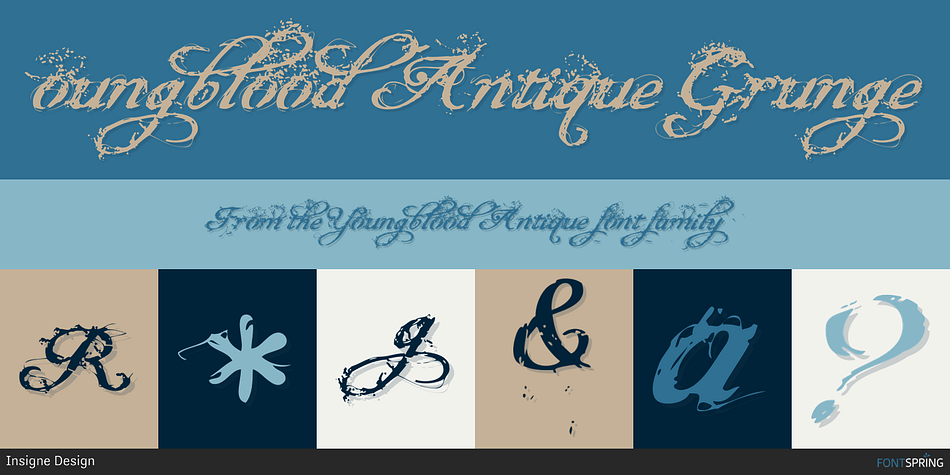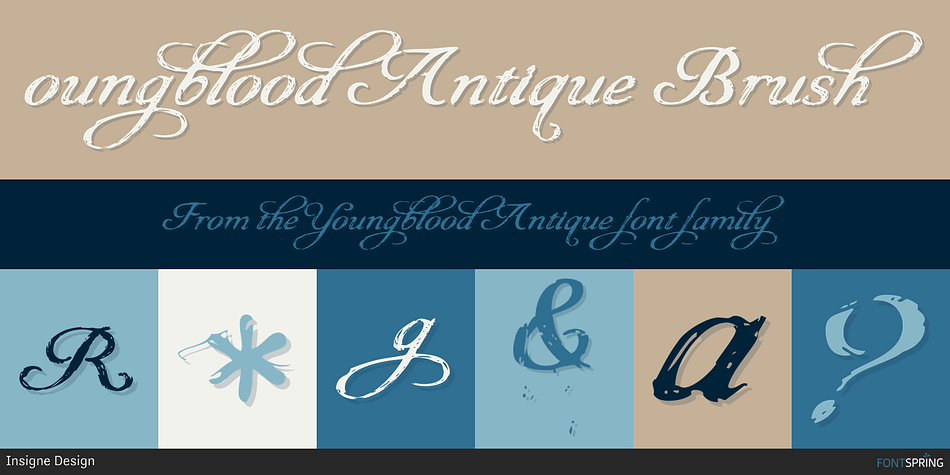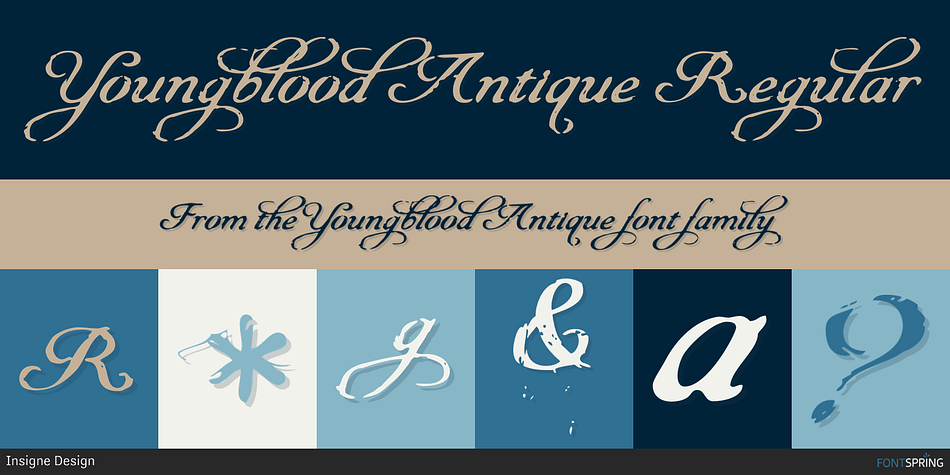
Youngblood Antique is a grunge and script font family. This typeface has three styles and was published by Insigne Design.
Youngblood Antique is a distressed non-connected formal script with tall, sweeping ascenders. Three variants are available, including an inked regular font, a font drawn with a dry brush and a distressed, grungy version. Sixty-four OpenType ligatures add a realistic, natural effect and ensure that no two letters in a word repeat. Youngblood Antique also includes OpenType ending swashes, and old style figures and 30 alternate characters that allow designers to customize the ascender and descender swashes. Be sure to check out the non-distressed original Youngblood.